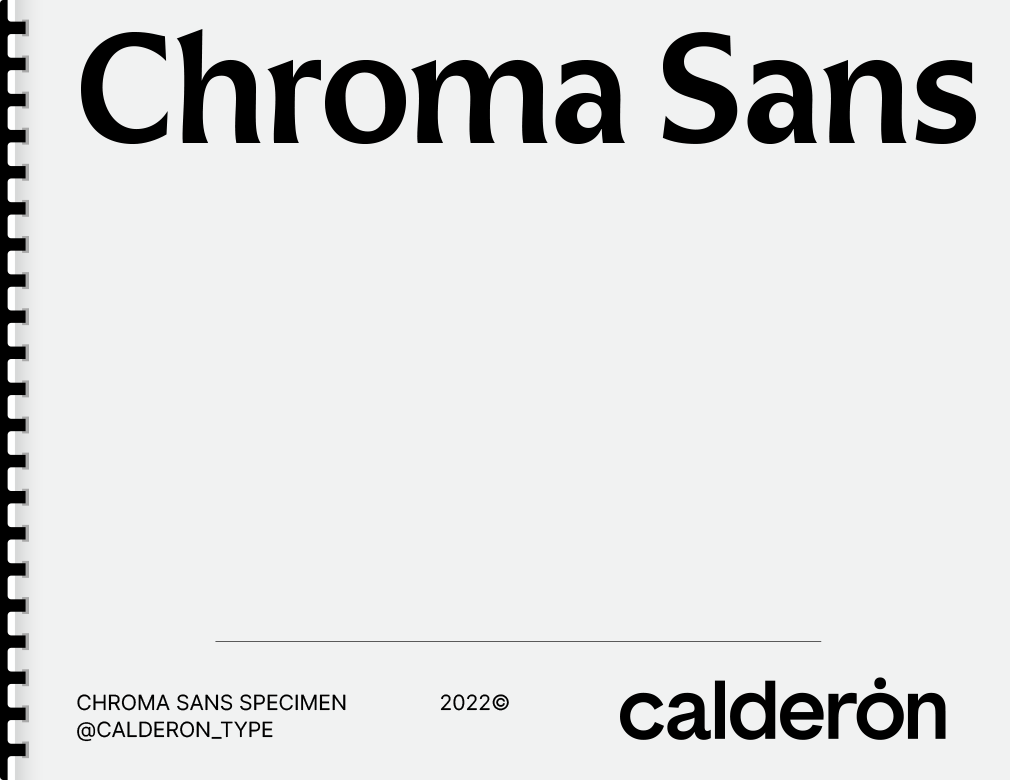
Chroma Sans was created mainly under the concept of «Splendid» which means: Magnificent, Gorgeous or Sumptuous. A typeface with a handcrafted concept with abundant things and accentuated shapes.
The design of Chroma Sans has a particular personality in the ecosystem of typefaces where each character draws attention due to its organic shapes.